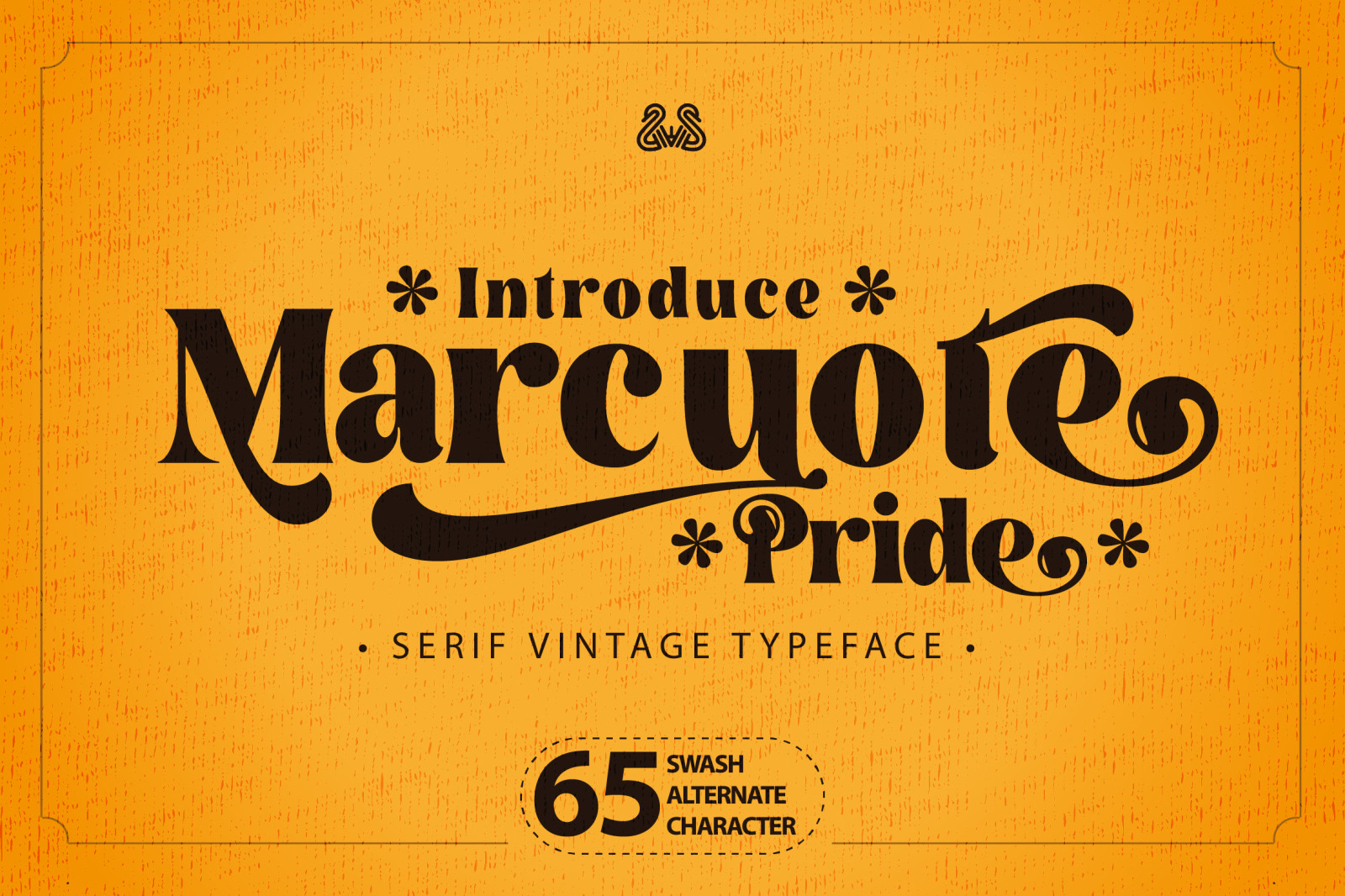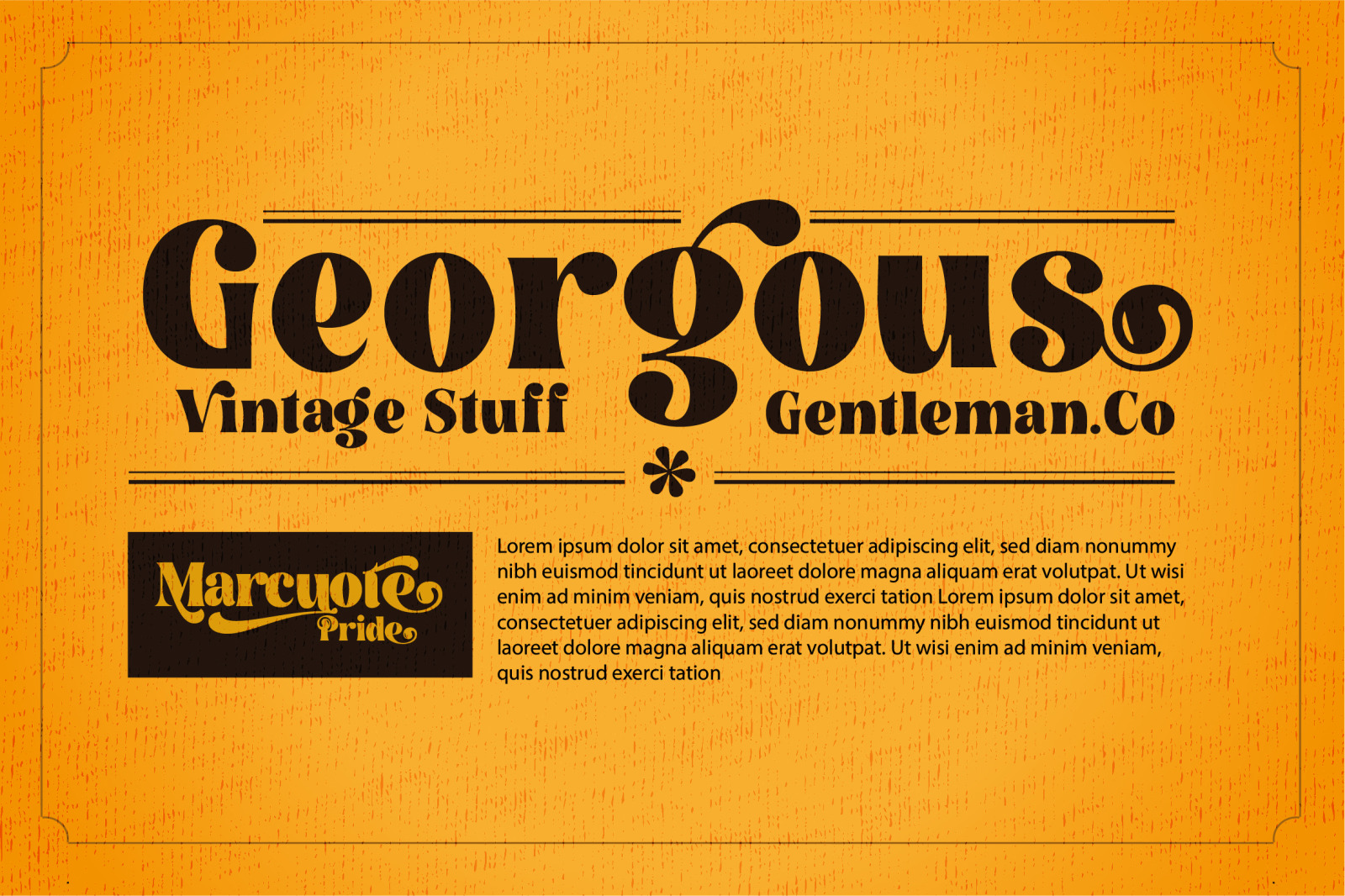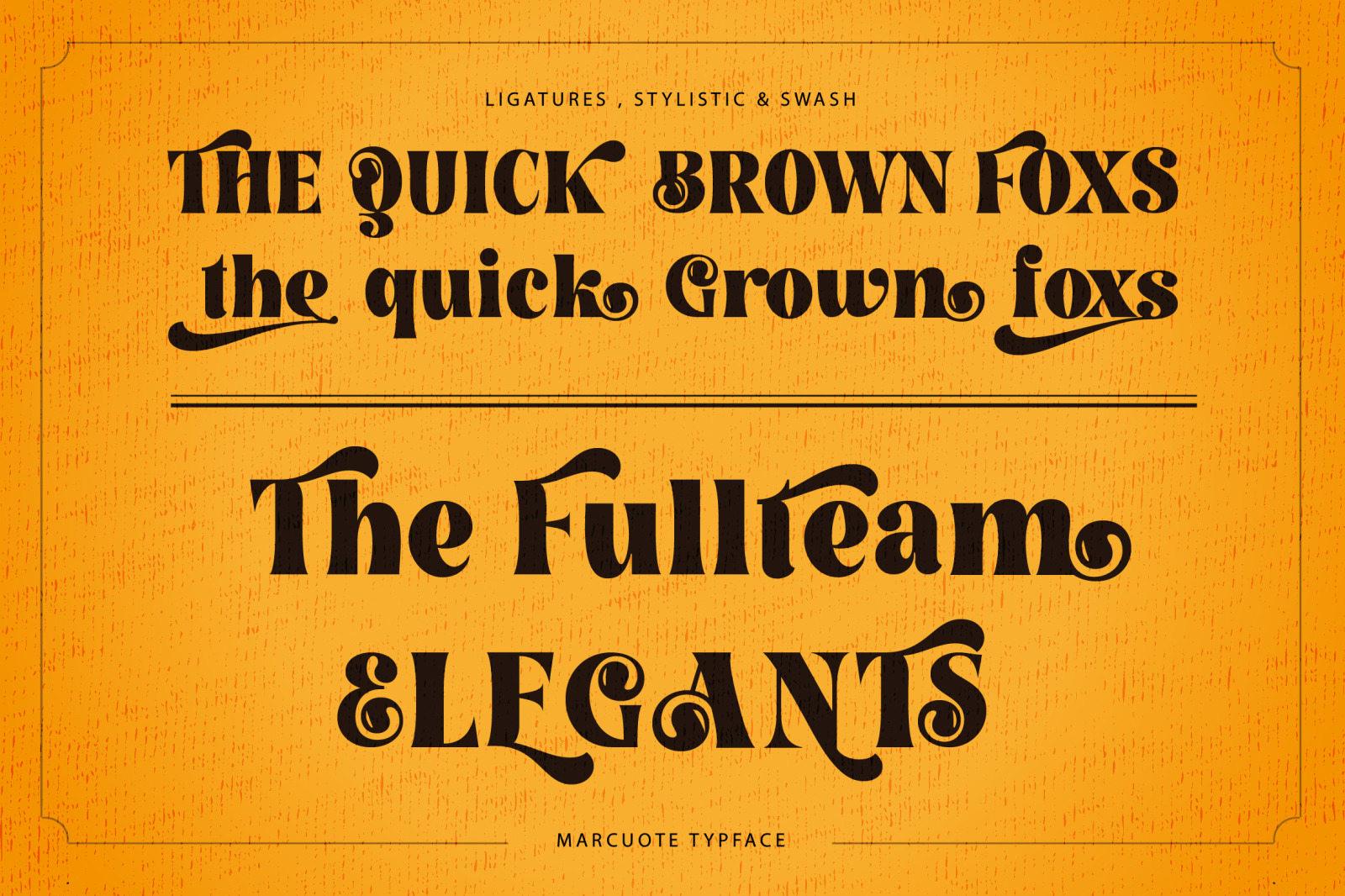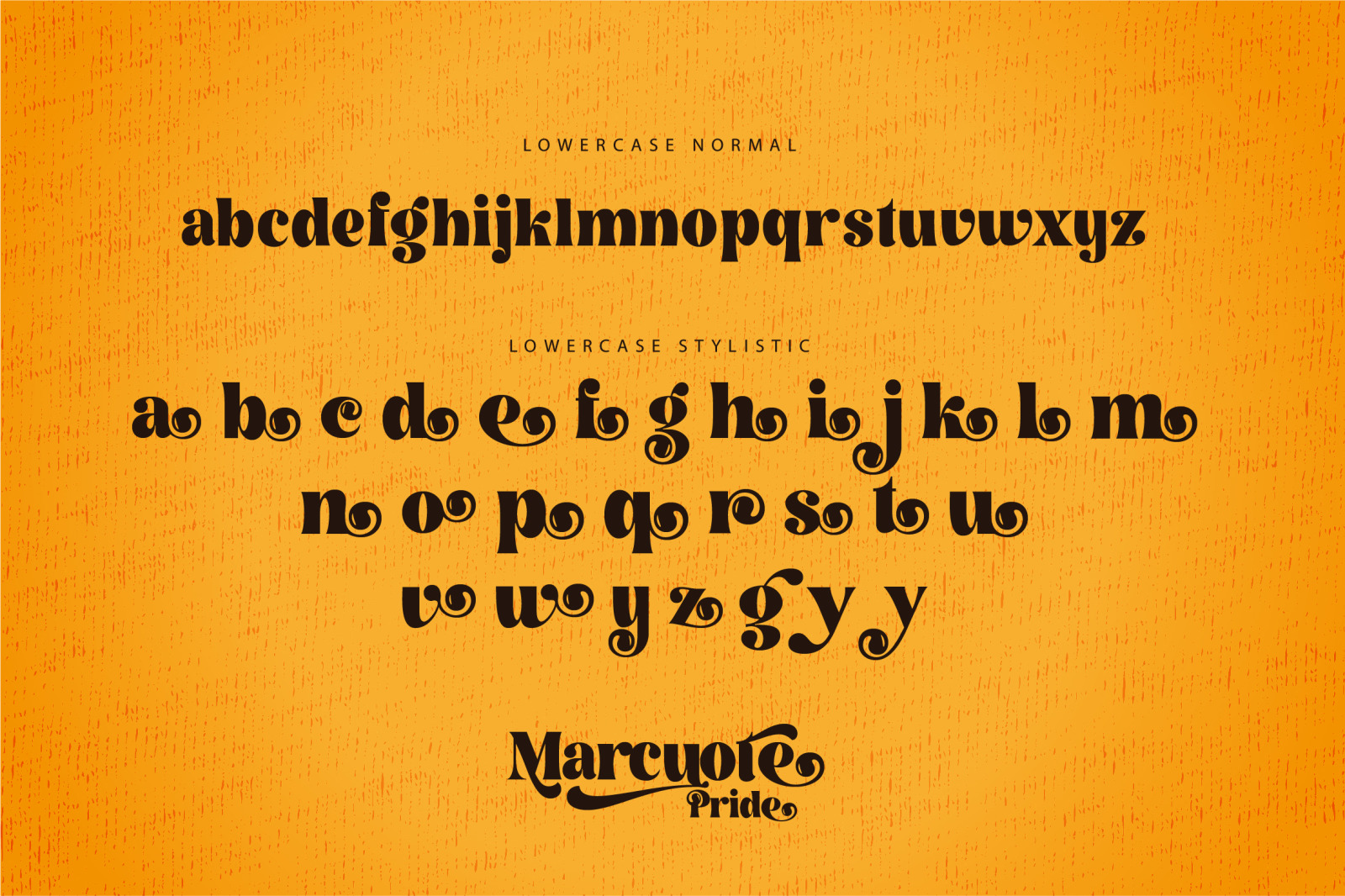
MARCUOTE PRIDE - VINTAGE SERIF FONT
Marcuote Pride - Serif Vintage Font
Marcuote Pride is a cool and bold serif font. Add it confidently to your favorite creations and let yourself be amazed by the outcome generated.